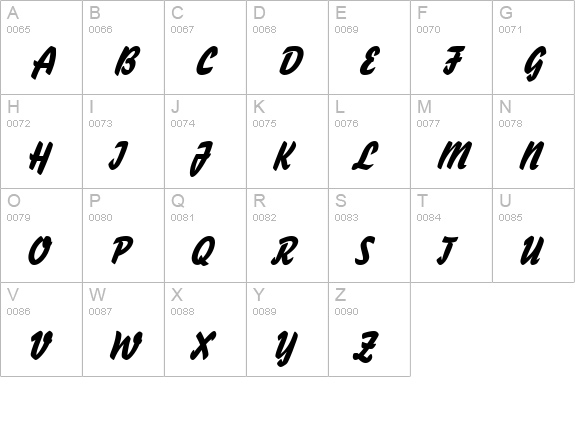
BrushStroke 26 Italic Font Details
BrushStroke 26 Italic is a distinctive, italic variant in the BrushStroke typeface family \xE2\x80\x94 well suited to design and typography projects.
BrushStroke 26 Italic font is a dynamic and expressive typeface that effortlessly combines elegance with a touch of playfulness. The sleek and slanted strokes of the letters create a sense of movement and energy, making it perfect for projects that require a modern and stylish look. The italicized design adds a unique flair to any text, enhancing its overall visual appeal. This font is ideal for a wide range of design projects, from logos and branding to posters and invitations. Its versatility allows it to be used in both print and digital formats, making it a valuable asset for any designer's toolkit. Whether you're looking to add a touch of sophistication to your next project or want to make a bold statement, BrushStroke 26 Italic font is sure to impress. Best of all, BrushStroke 26 Italic font is available for free download at FontsMarket.com. So go ahead and elevate your designs with this eye-catching and stylish typeface today!